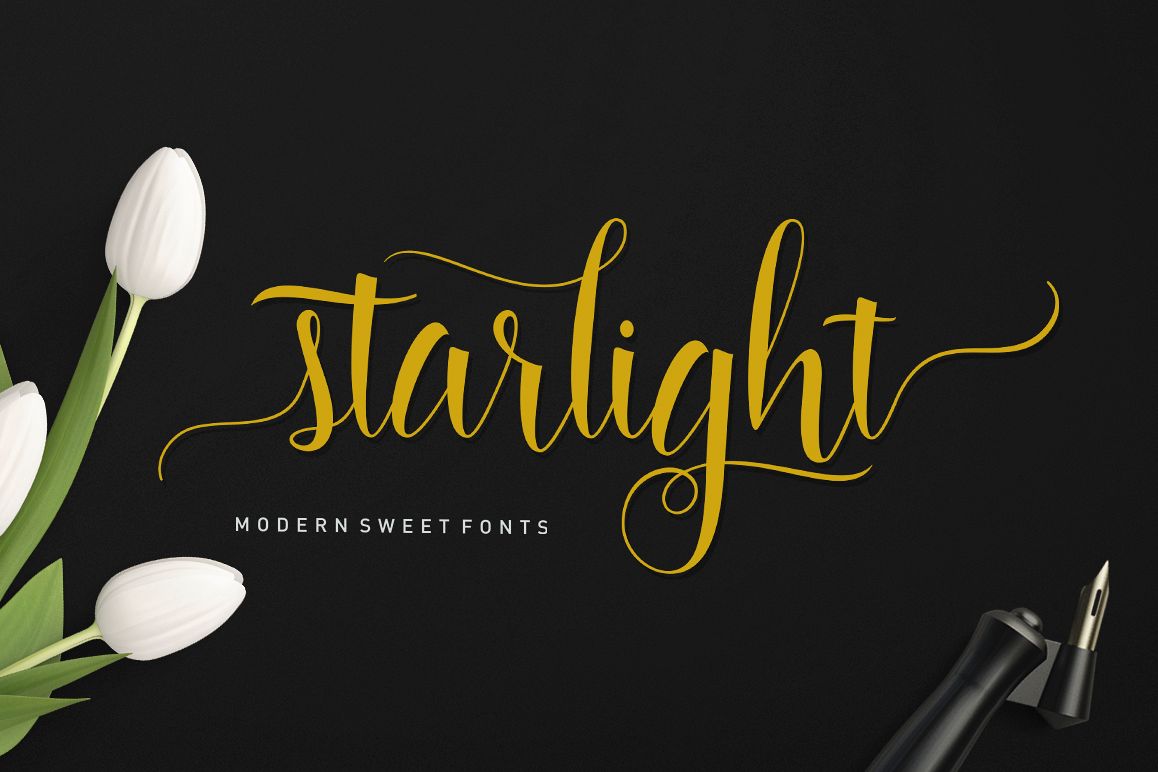
Hi, Introducing the latest styles Starlight Script with the kind of modern hand scratches, I hope you are interested in this font, if you want to use for your work this font can be used easily and simply because there are a lot of features in it to contain a complete set of letters lower and uppercase letters, assorted punctuation, numbers, and multilingual support. font also contains several ligatures and alternate style Stylistic To enable the OpenType Stylistic alternates, you need a program that supports OpenType features such as Adobe Illustrator CS, Adobe Indesign & CorelDraw X6-X7, Microsoft Word 2010 or later versions. And there are additional ways to access alternates/swashes, using Character Map (Windows), Nexus Font (Windows), Font Book (Mac) or a software program such as PopChar (for Windows and Mac). How to access all alternative characters using Adobe Illustrator: https://www.youtube.com/watch?v=XzwjMkbB-wQ How to access all alternative characters, using Windows Character Map with Photoshop: https://www.youtube.com/watch?v=Go9vacoYmBw This Font has given PUA unicode Thank you for your purchase!